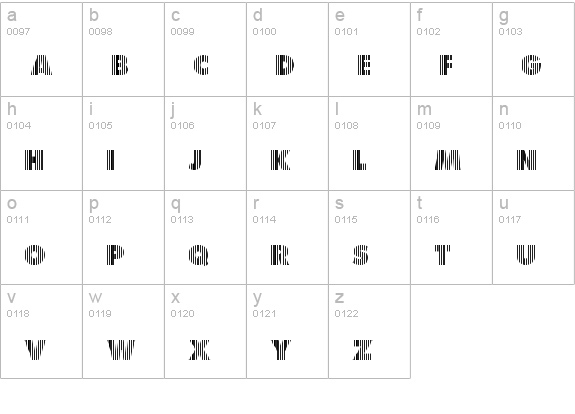
Shredded for you Font Details
Introducing Shredded for you, a revolutionary font that combines boldness and elegance in a unique way. This font is designed to add a touch of edginess and sophistication to your projects, making them truly stand out from the crowd. Shredded for you features a distinctive shredded effect, adding a dynamic and energetic element to your designs. Each letter is meticulously crafted, with sharp edges and intricate details that create a visually captivating look. Whether you're designing a logo, poster, or website, this font will ensure that your message is conveyed with impact and style. But what sets Shredded for you apart from other fonts? It's the fact that it is freely available to download at FontsMarket.com. Yes, you read that right – this amazing font can be yours without spending a dime. We believe that creativity should be accessible to all, and that's why we've made Shredded for you available for free. So go ahead, unleash your imagination and let this font inspire your next masterpiece. With its versatile nature, Shredded for you is suitable for a wide range of design projects. From fashion and beauty to music and sports, this font will add a touch of excitement and personality to any creative endeavor. Its bold and dynamic appearance makes it perfect for headlines, titles, and branding materials, while its legibility ensures that your message is easily conveyed to your audience. So what are you waiting for? Download Shredded for you today and see how it transforms your designs from ordinary to extraordinary. Don't miss out on this amazing opportunity to enhance your creative projects with a font that is both visually stunning and freely available. Head over to FontsMarket.com now and embark on a journey of creativity and self-expression with Shredded for you.